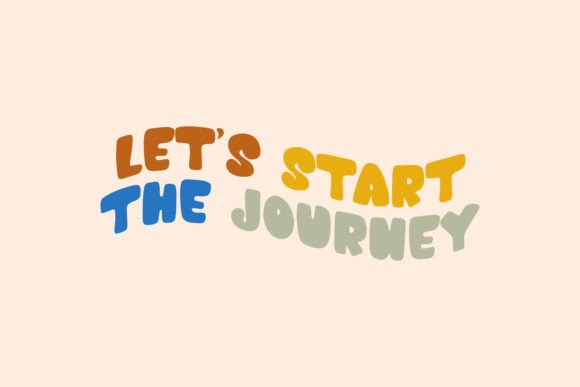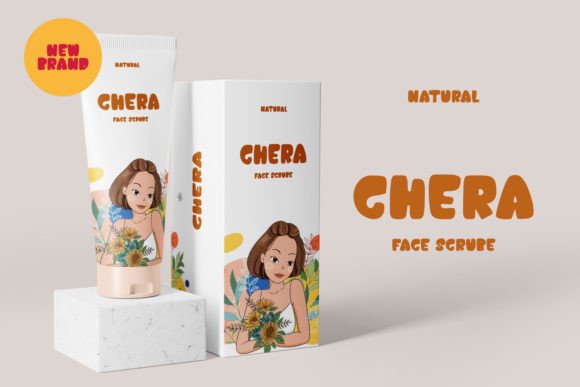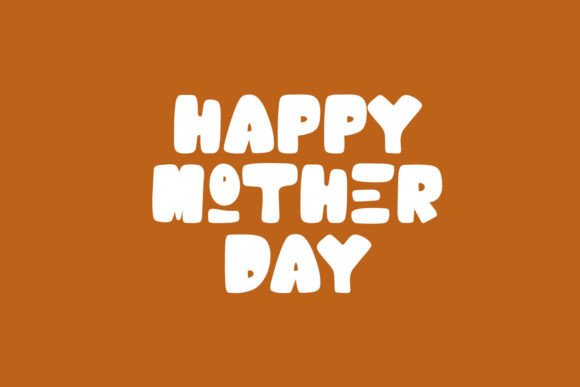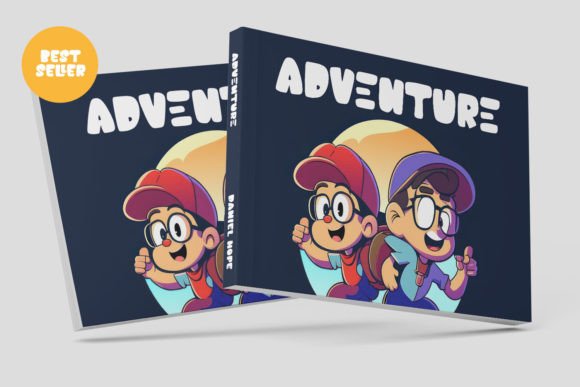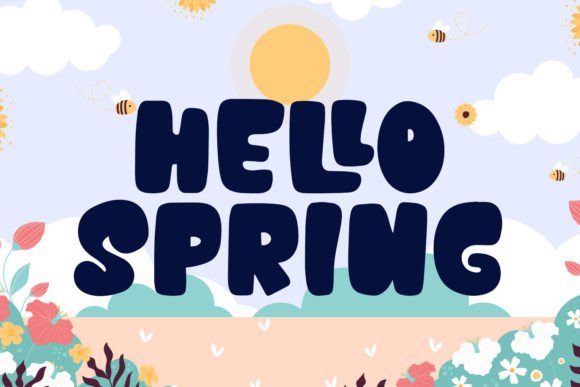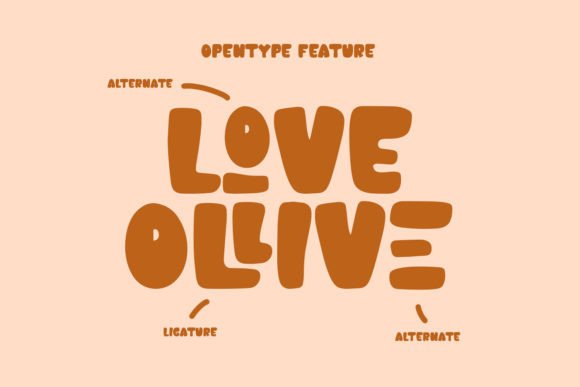
Introduction to Quick Jelly Font
Have you ever stared at a blank canvas, eager to bring a design to life, but struggling to find the perfect font to match your vision? This is where the magic of typography comes in – the right font can elevate your creative project from ordinary to extraordinary. For designers seeking a high-quality font that adds a playful touch, look no further than the Quick Jelly Font. This delightful font is inspired by bubble lettering and is designed to bring a smile to your audience’s faces.
With its versatility and character, Quick Jelly Font is a valuable resource for designers. Whether you’re working on a logo, title, or photography watermark, this font is sure to impress. Plus, with free download options available, you can start experimenting with this design resource right away – all without sacrificing transparency or visual clarity.
- High-quality, bold and playful font design perfect for creative projects.
- Unique characteristics include a fun and quirky feel, making it perfect for creative projects, such as posters, logos, and social media graphics.
Honest Review: Quick Jelly Font
I recently stumbled upon the Quick Jelly Font, a free download that has been making waves in the design community. As a designer, I’m always on the lookout for high-quality fonts that can elevate my creative projects.
One of the standout features of the Quick Jelly Font is its transparent background, which makes it incredibly versatile and easy to use. Whether you’re working on a digital design or a print project, this font is sure to impress.
- ✨ High-quality design with a unique, playful feel
- ✨ Transparent background makes it easy to use on various backgrounds
- ⚠️ Limited character set, which may be a concern for longer projects
- ⚠️ Not suitable for all types of designs, such as formal or professional projects
Overall, I’m impressed with the Quick Jelly Font. While it may not be suitable for all types of projects, it’s a great addition to any designer’s toolkit. The free download and high-quality design make it a must-have for creative projects.
Tips for Getting the Most Out of Quick Jelly Font
Experiment with different font sizes and styles to create visually appealing effects. Use the transparent background to layer your text over images or other design elements. The Quick Jelly Font is a versatile design resource that can be used in a variety of creative projects.
The Quick Jelly Font is perfect for creative projects, such as graphic design, digital art, and presentation design. Its high quality and transparent background make it a great choice for designers looking for a unique and versatile font.